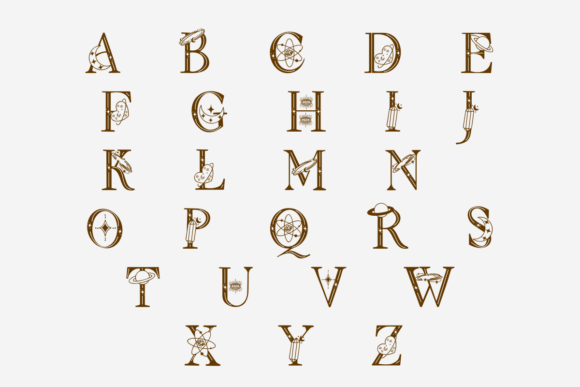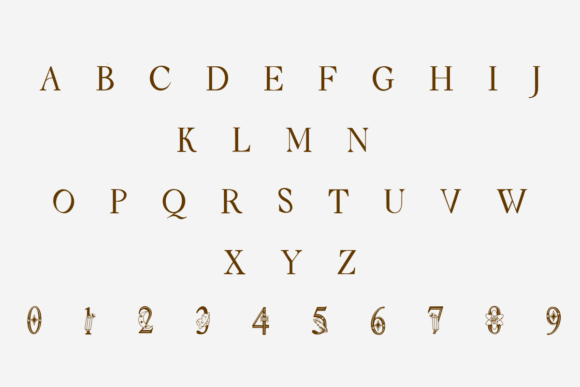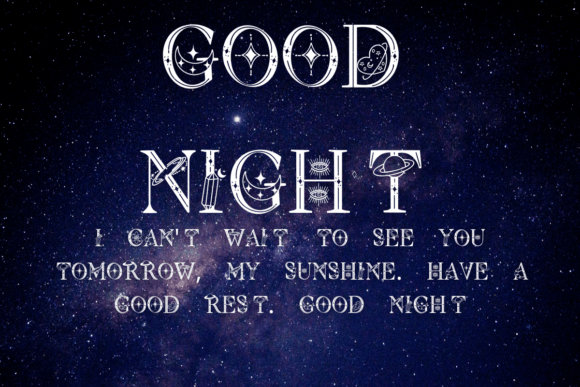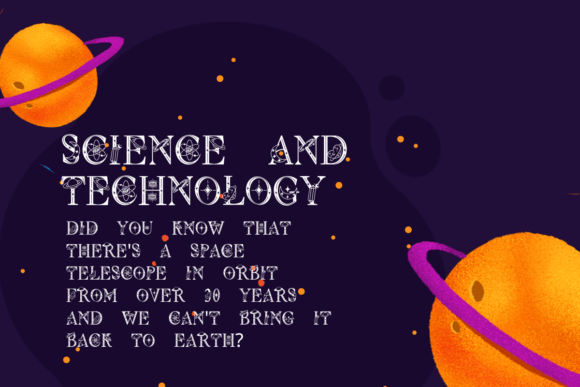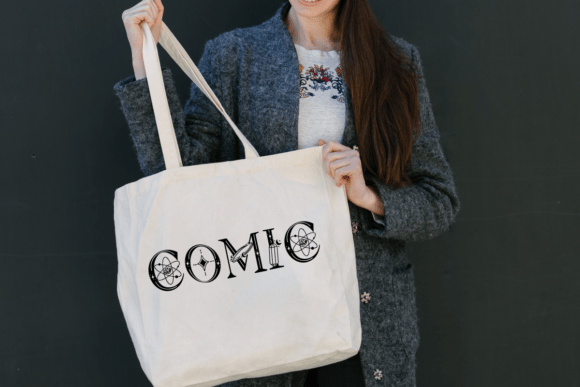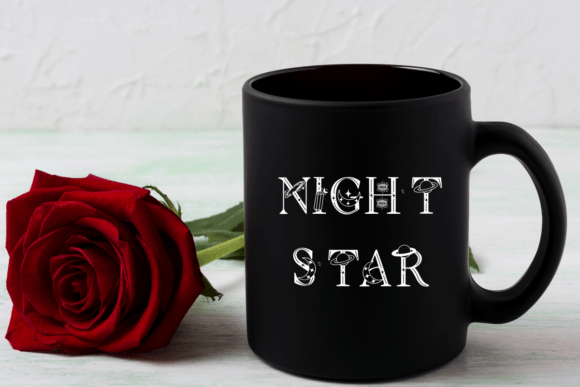
The Ultimate Guide to Comic Night Font: Unleash Your Creativity
I’ll never forget the night I was working on a project, trying to find the perfect font to match the playful and quirky vibe of my design. I had a deadline looming, and my font search was going nowhere. That’s when I stumbled upon Comic Night Font, and it was love at first sight! ✨ In this article, I’ll share my experience with this amazing decorative font, its features, and how to make the most of it in your designs.
- 🎉 Playful and Quirky: Comic Night Font is perfect for adding a touch of whimsy to your designs.
- ✅ Versatile: Use it for notes, diaries, greeting cards, banners, social media posts, and more!
- 💻 Easy to Read: Despite its decorative nature, Comic Night Font remains clear and readable.
While Comic Night Font is amazing, there are a few things to keep in mind: 🤔
- ⚠️ Not Suitable for Body Text: Due to its decorative nature, Comic Night Font is best used for headings or titles.
- ⚠️ Limited Language Support: This font might not support all languages or special characters.
One of the best things about Comic Night Font is its OpenType features and glyphs. These allow you to:
- Access alternative characters and ligatures.
- Experiment with different stylistic sets.
- Add more personality to your text.
The Story Behind Comic Night Font
Comic Night Font was created with the intention of bringing a playful, comic book-inspired feel to designs. Its creator wanted to craft a font that was both fun and functional, perfect for a wide range of creative projects.
| Font Name | Comic Night Font |
| Author | Nongyao |
Q: What is Comic Night Font best used for?
A: Comic Night Font is perfect for titles, headings, greeting cards, social media posts, and any project that needs a playful touch.
Q: Is Comic Night Font available in multiple languages?
A: Comic Night Font may have limited language support, so it’s best to check the font’s specifications before using it for multilingual projects.